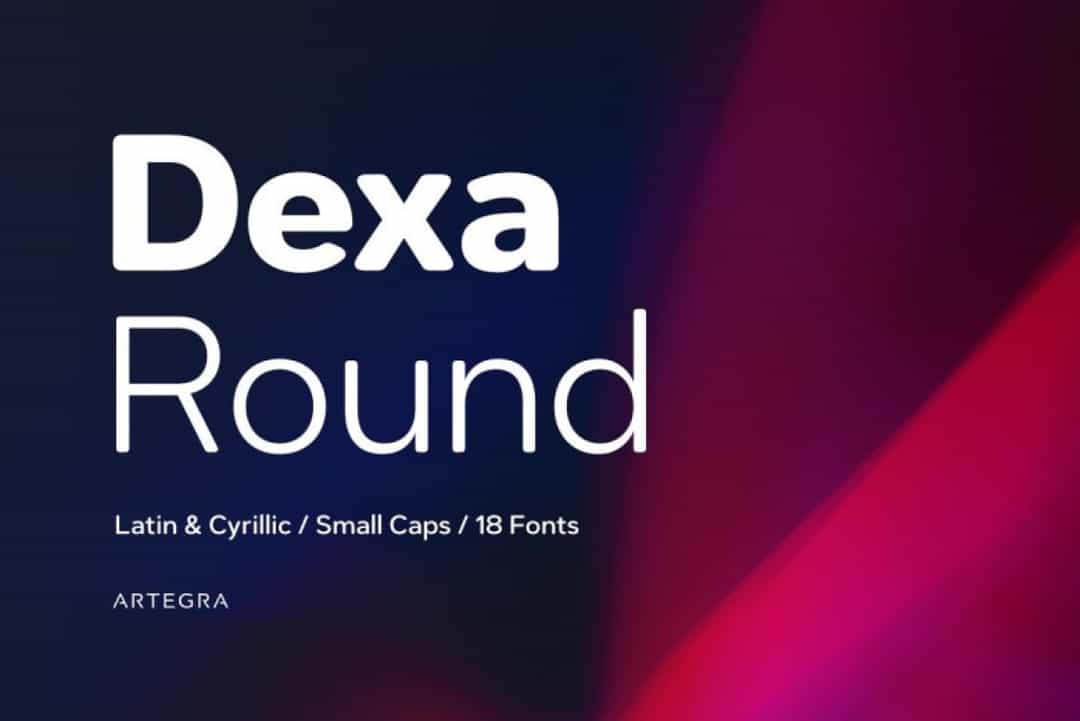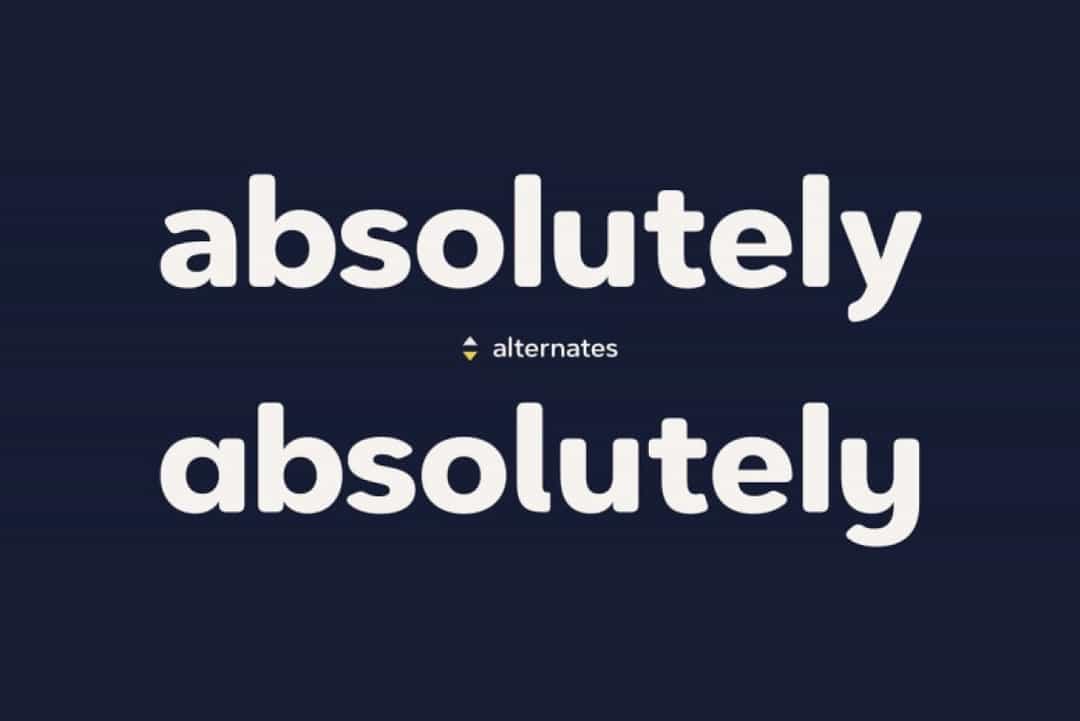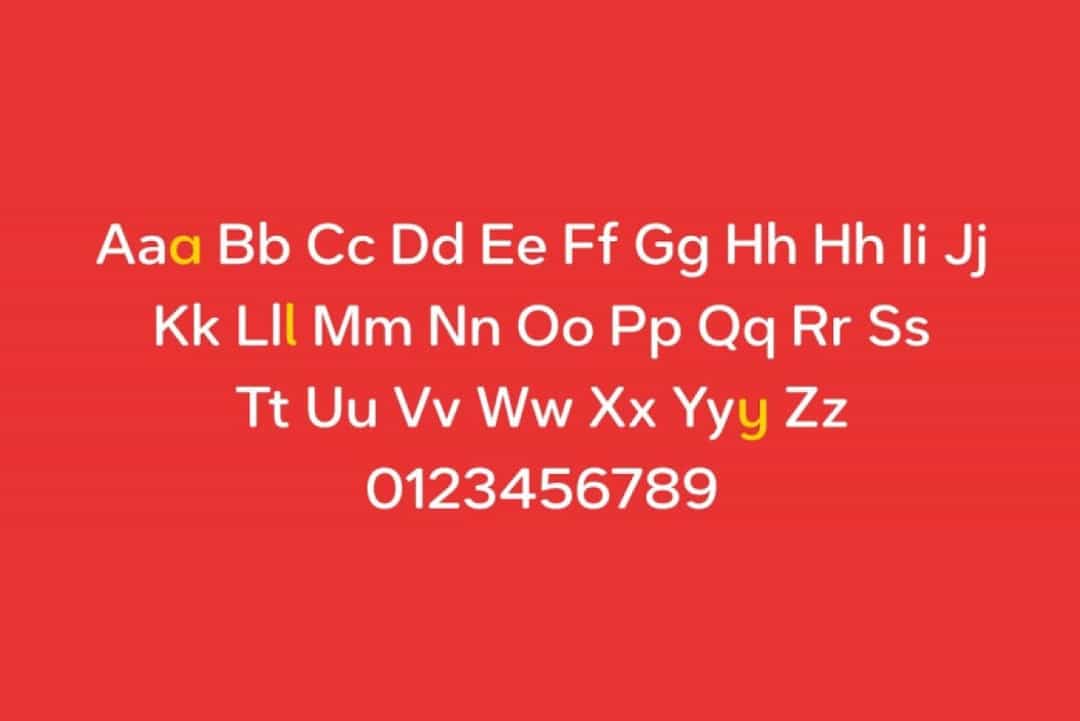
Dexa Round Font Family is part of Dexa Pro’s superfamily and features 18 fonts ranging from slim to black weights with italic counterparts, boasting more than 770 different glyphs per font for optimal use across both Latin and Cyrillic languages.